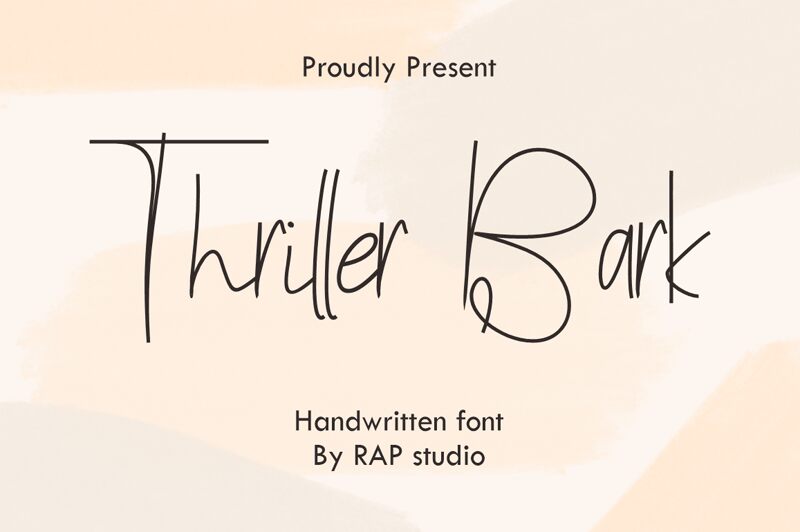
Thriller Bark
Thriller Bark, crafted by RAP Studio, exudes an organic charm with its handwritten style and light weight. The fluid strokes and whimsical curves give this font a personal touch, making it feel inviting and creative. Each letter flows effortlessly into the next, evoking a sense of spontaneity and playfulness.
Perfect for projects that seek to convey warmth and authenticity, Thriller Bark shines in designs ranging from personal invitations to casual branding materials. Its distinct character is ideal for children’s books, artistic blogs, or any creative endeavor where personality and approachability are key. With Thriller Bark, your typography will undoubtedly stand out with its elegant yet unpretentious aesthetic.